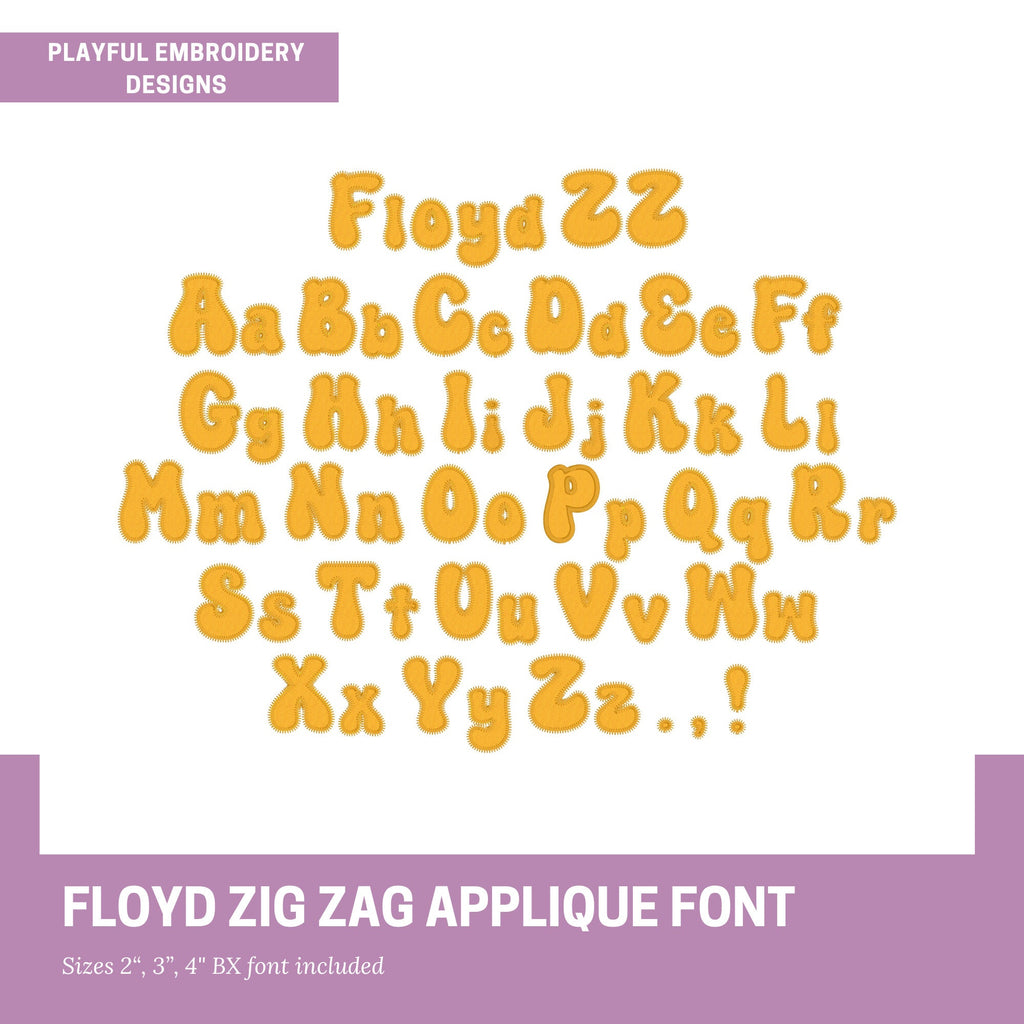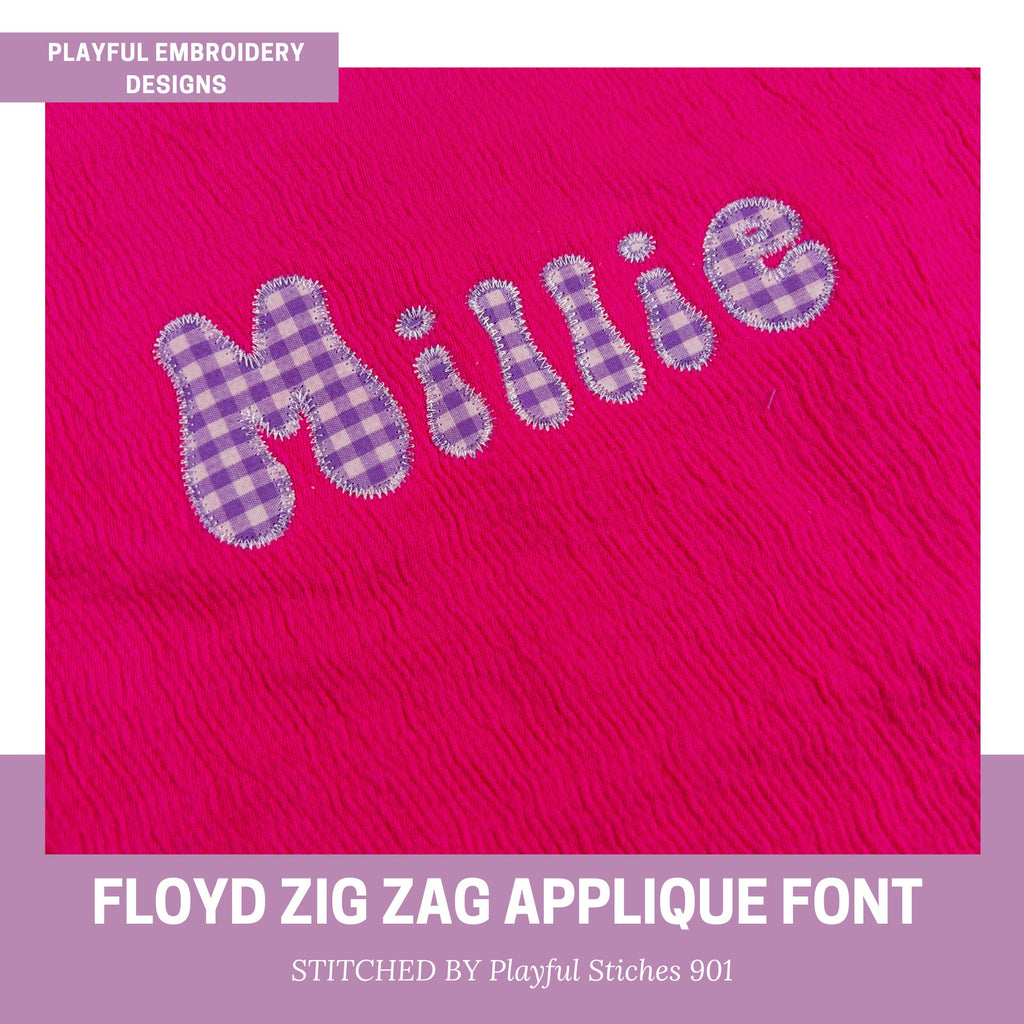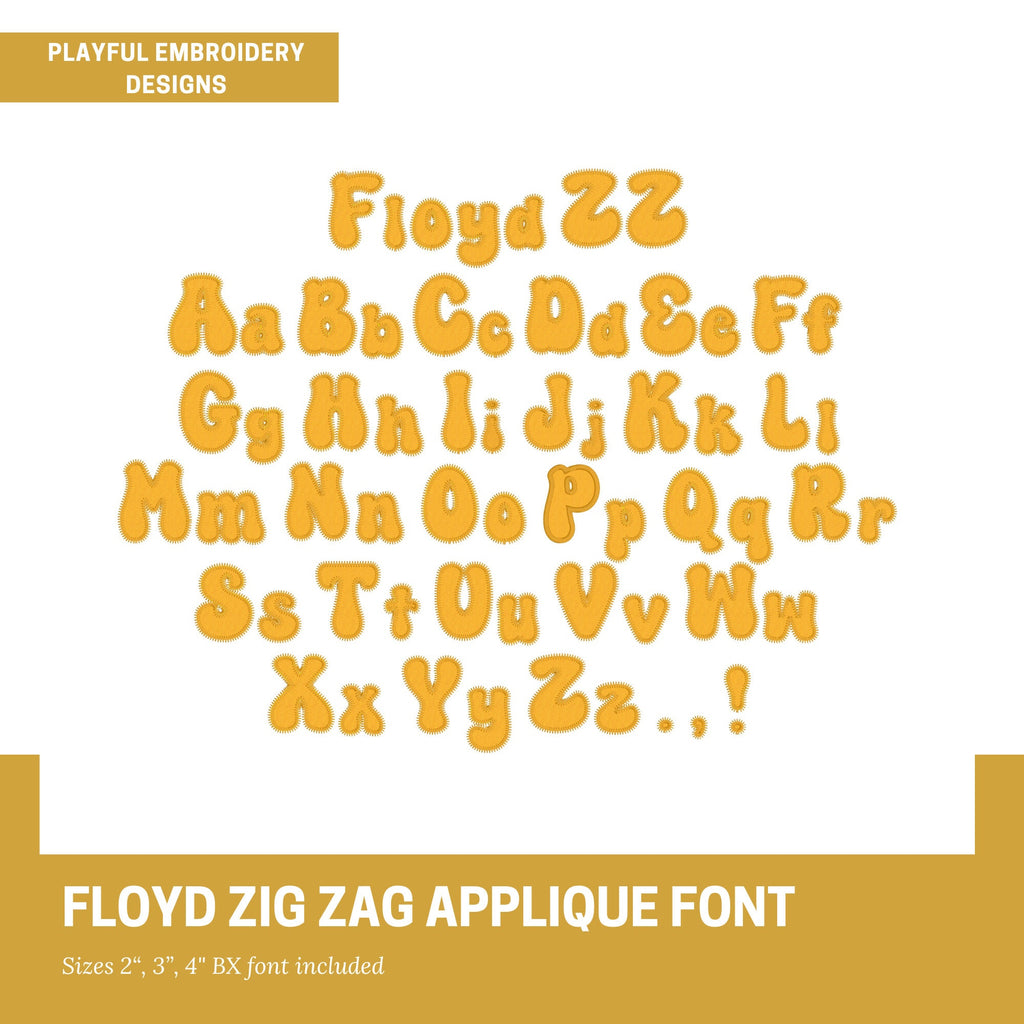
Retro Applique Monogram Design, Zig Zag Funky Applique Machine Embroidery Font, 2", 3", 4" font size, BX Monogram Font, Groovy Applique Font
Groovy Floyd applique font design for machine embroidery. This version of Floyd is zig zag stitch applique.